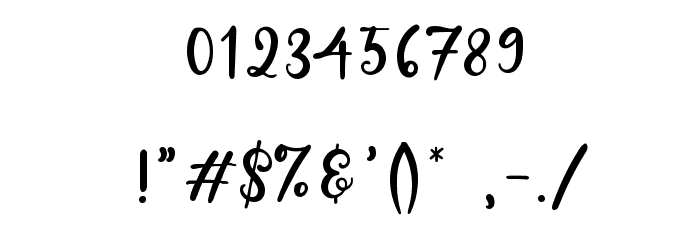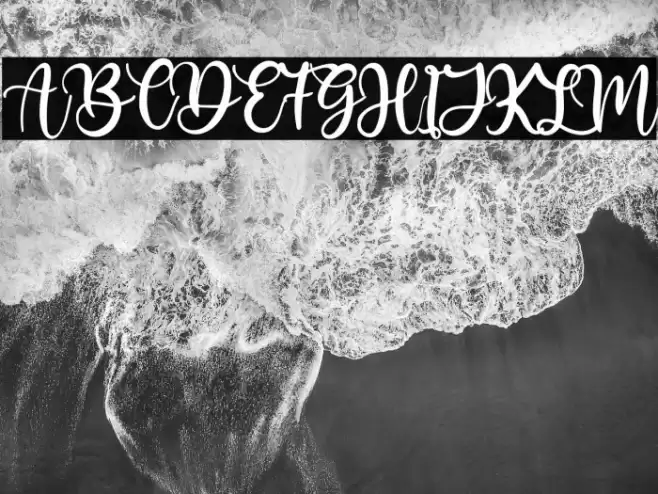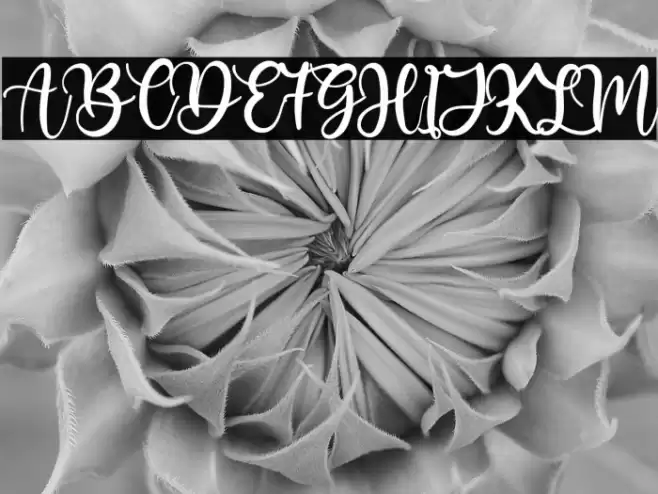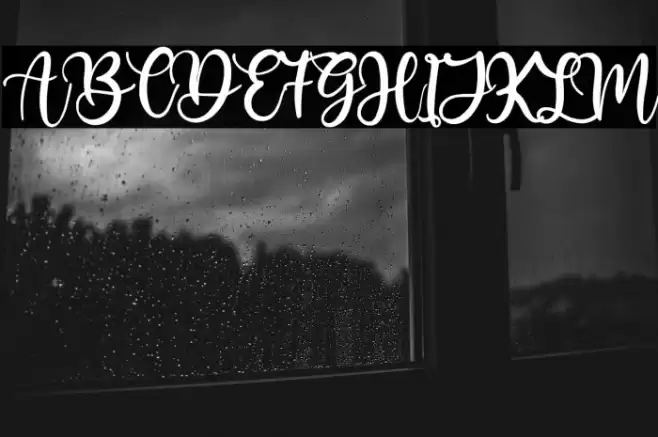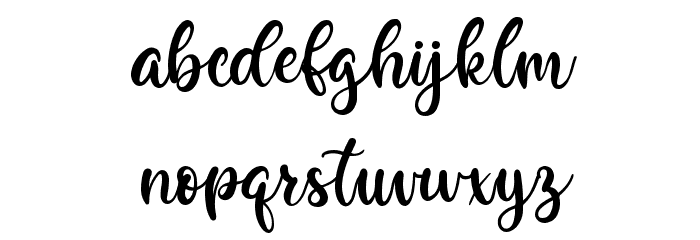
Butter Cookies Font
Butter Cookies Description
This font features a playful and elegant script style with a handwritten appearance. The letters are interconnected, creating a flowing and cohesive look. The uppercase characters are ornate, with decorative loops and swirls, while the lowercase letters maintain a more subtle yet still cursive form. The numbers are consistent with the script style, offering a harmonious blend with the alphabet. Special characters are designed to match the overall aesthetic, ensuring a uniform appearance across all text elements. This font exudes a sense of charm and sophistication, making it suitable for creative and artistic projects.